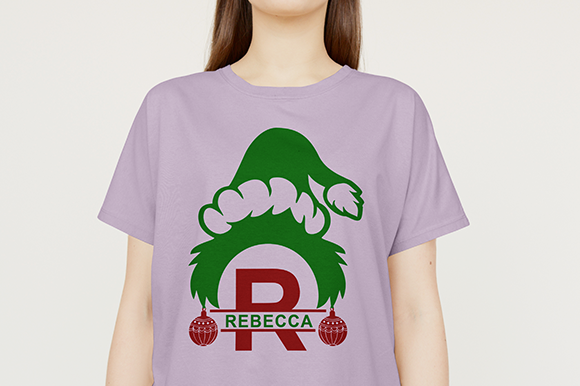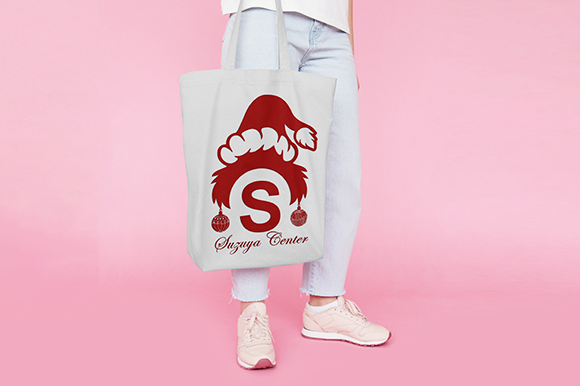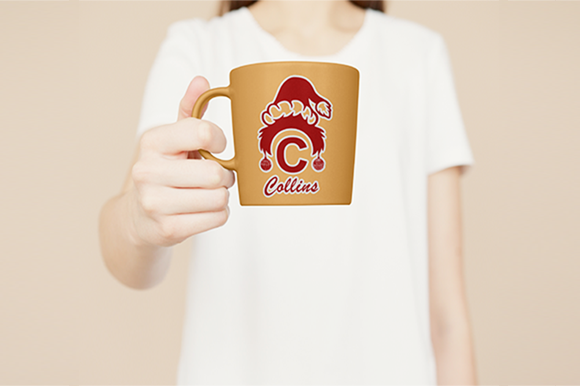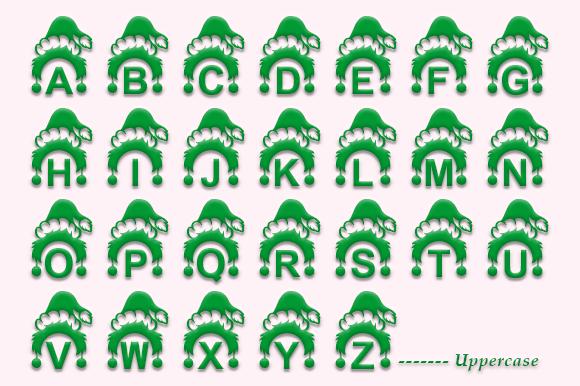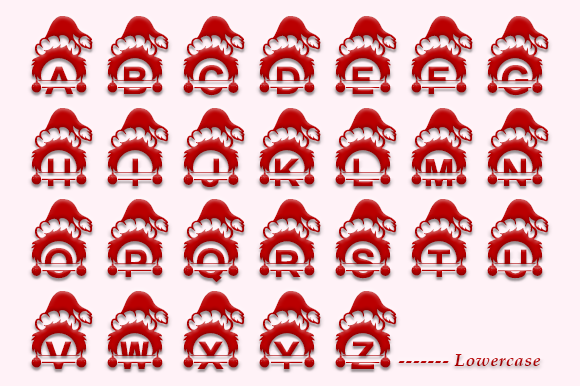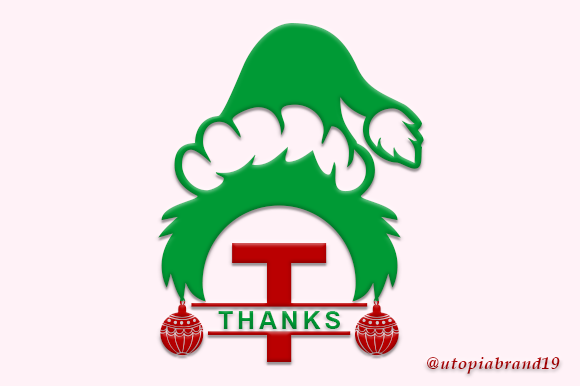
Introduction to Manson Monogram Font
As you sit down to create a beautiful winter invitation for your best friend’s holiday party, you’re faced with a familiar dilemma: finding the perfect font to set the tone for the season. The right font can elevate your design from ordinary to extraordinary, and that’s exactly what the Manson Monogram Font promises to deliver.
With its dainty and festive aesthetic, the Manson Monogram Font is an ideal choice for designers looking to add a touch of whimsy and elegance to their projects. Whether you’re working on a high-quality brochure or a simple greeting card, this font is sure to impress.
Key Features of Manson Monogram Font
- High-quality design: Manson Monogram Font is a premium font perfect for creative projects that require a touch of elegance and sophistication.
- Large character set: With over 100 unique characters, Manson Monogram Font offers a vast range of creative possibilities for designers and artists.
Honest Review: Manson Monogram Font
- High quality design: The Manson Monogram Font is well-crafted and visually appealing, making it a great addition to any creative project.
- Limited customization: While the font is high quality, it may not offer as many customization options as some other design resources.
- Not suitable for all projects: Due to its unique design, the Manson Monogram Font may not be the best choice for every creative project.
Overall, I think the Manson Monogram Font is a great resource for designers looking for a high-quality, free download. While it may have some limitations, its unique design and transparent background make it a valuable addition to any design library.
Manson Monogram Font
The Manson Monogram Font is a high-quality, free download design resource ideal for creative projects. Its unique style and versatility make it a valuable addition to any designer’s toolkit.
Tips for Getting the Most Out of Manson Monogram Font
The Manson Monogram Font is ideal for creating custom logos, graphics, and text overlays for social media, presentations, and marketing materials. Its unique style and high-quality design make it a valuable resource for designers and non-designers alike.